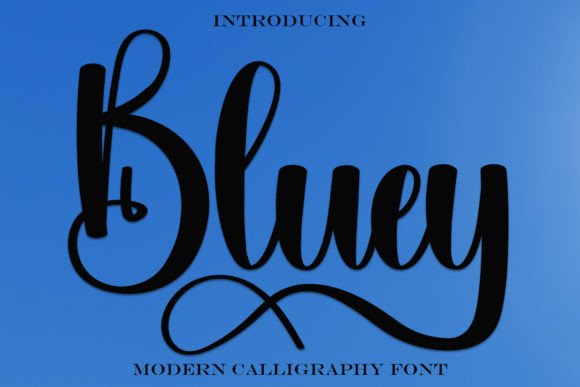
Introducing Bluey Font: The Sweet and Cursive Handwritten Font for Your Design Needs
Are you looking for a font that can add a touch of joy and romance to your design projects? Look no further than Bluey Font, a sweet and cursive handwritten font that is perfect for a variety of design ideas. In this article, we’ll take a closer look at Bluey Font, its features, and how you can use it to elevate your designs.
What is Bluey Font?
Bluey Font is a beautiful, handwritten font that is designed to bring a sense of joy and romance to your designs. Its cursive and flowing lines make it perfect for creating elegant and sophisticated designs that are sure to capture the attention of your audience.
Bluey Font is a versatile font that can be used for a wide range of design projects, from wedding invitations and greeting cards to branding and advertising materials. Its sweet and gentle nature makes it perfect for designs that require a personal touch.
Features of Bluey Font
So, what makes Bluey Font so special? Here are some of its key features:
- Handwritten style: Bluey Font is a handwritten font that is designed to look like it was written with a pen or pencil. This gives it a personal and unique touch that is hard to find with other fonts.
- Cursive lines: The cursive lines of Bluey Font make it perfect for creating flowing and elegant designs. The lines are smooth and connected, giving the font a sense of movement and fluidity.
- Sweet and gentle: Bluey Font has a sweet and gentle nature that makes it perfect for designs that require a personal touch. It’s ideal for wedding invitations, greeting cards, and other designs that require a romantic feel.
- Versatile: Bluey Font is a versatile font that can be used for a wide range of design projects. It’s perfect for branding, advertising, and marketing materials, as well as personal projects like wedding invitations and greeting cards.
How to Use Bluey Font in Your Designs
Now that we’ve covered the features of Bluey Font, let’s take a look at how you can use it in your designs. Here are some ideas to get you started:
- Wedding invitations: Bluey Font is perfect for wedding invitations, as it adds a romantic and elegant touch to the design. You can use it to create beautiful and personalized invitations that will set the tone for the big day.
- Greeting cards: Bluey Font is also great for greeting cards, as it adds a personal and heartfelt touch to the design. You can use it to create beautiful and meaningful cards for special occasions like birthdays, anniversaries, and holidays.
- Branding and advertising: Bluey Font can also be used for branding and advertising materials, as it adds a touch of elegance and sophistication to the design. You can use it to create beautiful and effective logos, brochures, and other marketing materials.
- Social media graphics: Bluey Font is also perfect for social media graphics, as it adds a personal and creative touch to the design. You can use it to create beautiful and engaging graphics for Instagram, Facebook, and other social media platforms.
Tips for Using Bluey Font Effectively
Here are some tips for using Bluey Font effectively in your designs:
- Use it with contrasting colors: Bluey Font looks best when paired with contrasting colors. Try pairing it with bold and bright colors to create a beautiful and eye-catching design.
- Experiment with different sizes: Bluey Font can be used at different sizes, from large headings to small body text. Experiment with different sizes to find the one that works best for your design.
- Pair it with other fonts: Bluey Font can be paired with other fonts to create a unique and interesting design. Try pairing it with a bold and sans-serif font to create a beautiful contrast.
- Use it sparingly: Bluey Font is a beautiful font, but it can be overwhelming if used too much. Use it sparingly to create a beautiful and elegant design.
In conclusion, Bluey Font is a beautiful and versatile font that can add a touch of joy and romance to your designs. Its cursive and flowing lines make it perfect for creating elegant and sophisticated designs that are sure to capture the attention of your audience.
Whether you’re designing wedding invitations, greeting cards, or branding and advertising materials, Bluey Font is a great choice. Its sweet and gentle nature makes it perfect for designs that require a personal touch.
So why not give Bluey Font a try? With its ease of use and versatility, it’s sure to become a favorite in your design arsenal.
- What is Bluey Font?: Bluey Font is a sweet and cursive handwritten font that is perfect for a variety of design ideas.
- What is Bluey Font used for?: Bluey Font can be used for a wide range of design projects, including wedding invitations, greeting cards, branding and advertising materials, and social media graphics.